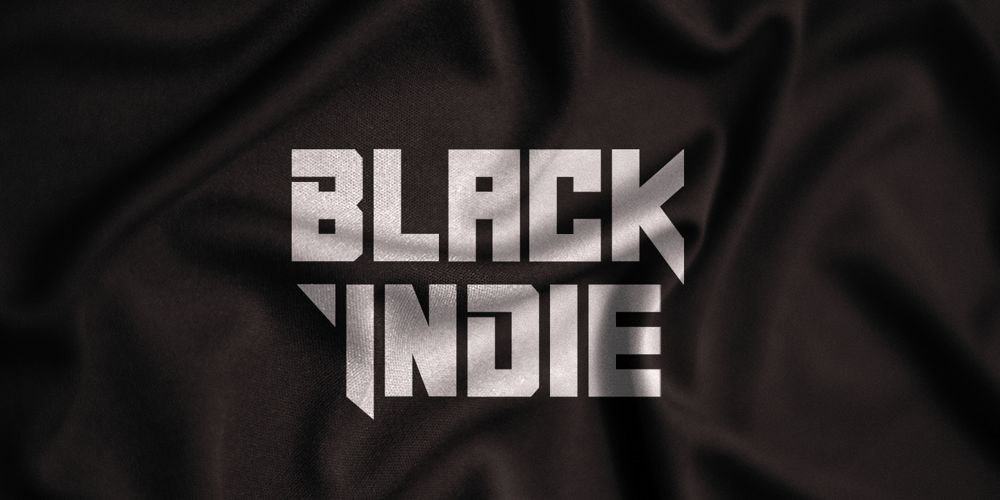
Black Indie Font Family was designed by Donis Miftahudin and published by Din Studio. Black Indie contains 1 styles and family package options. Black Indie is a bold and authentic display font. The font is suitable for any branding project like logo, t-shirt printing and many more. outstanding in a wide range of contexts.Featured : Accents (Multilingual characters) PUA encoded Numerals and Punctuation (OpenType Standard) Thanks for downloading premium font from Din Studio